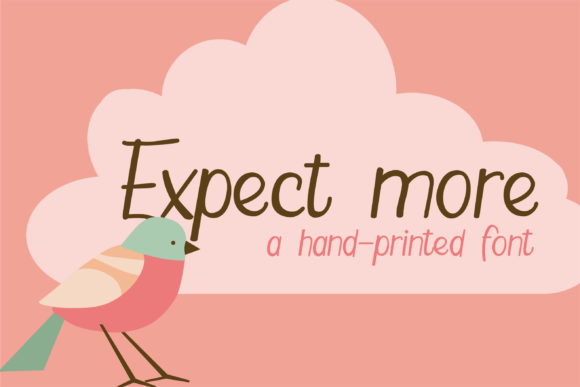
Introducing the Expect More Font Family, a Dynamic Duo of Handwritten Print and Script Fonts
Step into the world of Expect More, a font family that captures the essence of freedom, expression, and individuality. Crafted by Illustration Ink, this captivating duo, comprising the Expect More script font and its hand-written print counterpart, will ignite your creativity and elevate your designs to new heights.
Welcome Expect More, the Casual Hand-written Print Font
Expect More print font is the epitome of casual elegance, exuding a natural and effortless charm. Its unpretentious style, reminiscent of handwritten notes and heartfelt letters, adds a touch of warmth and authenticity to your creations. Picture the beauty of handwritten invitations, heartfelt love letters, or eye-catching social media posts adorned with this font's unique charm. It breathes life into your words, evoking emotions and creating a lasting impact.
Embrace Expectations, the Alluring Script Font
Expectations, the script font counterpart to Expect More, is a symphony of graceful lines and elegant curves. Its flowing nature lends a touch of sophistication and allure to your designs, making it the perfect choice for creating elegant logos, stylish branding, or captivating wedding invitations. With Expectations, your words dance across the page, capturing attention and leaving a lasting impression.
Together, Expect More and Expectations form an Unstoppable Force
The Expect More font family is not just a collection of fonts; it's a creative toolkit that empowers you to express your individuality and captivate your audience. Let these fonts ignite your imagination and elevate your designs to new heights. Whether you're a seasoned designer or just starting your creative journey, the Expect More font family is your trusted companion, ready to transform your ideas into stunning realities.
Unlock a World of Creative Possibilities with Expect More
With the Expect More font family at your disposal, you'll discover a world of endless creative possibilities. Create stunning logos that command attention, craft brochures that leave a lasting impression, or design captivating social media posts that engage your audience. The versatility of these fonts knows no bounds, allowing you to effortlessly adapt them to any project, from whimsical invitations to professional presentations.